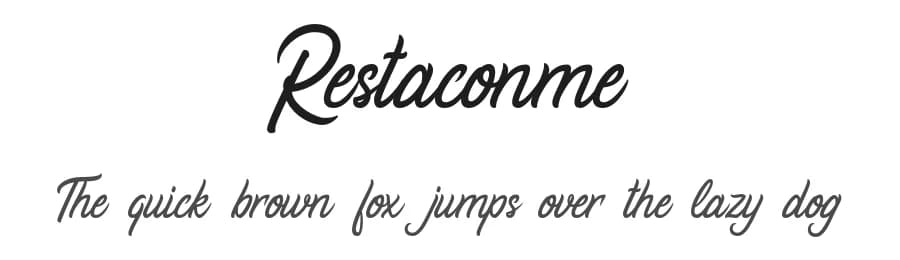
About Restaconme Font
| Designer | Akhmad Ilham |
Restaconme Font is a script font that shines as a display or heading face. Pair it with a clean sans-serif or serif font for body text β the contrast creates a clear hierarchy while the two styles stay balanced and easy to read.
Restaconme Font